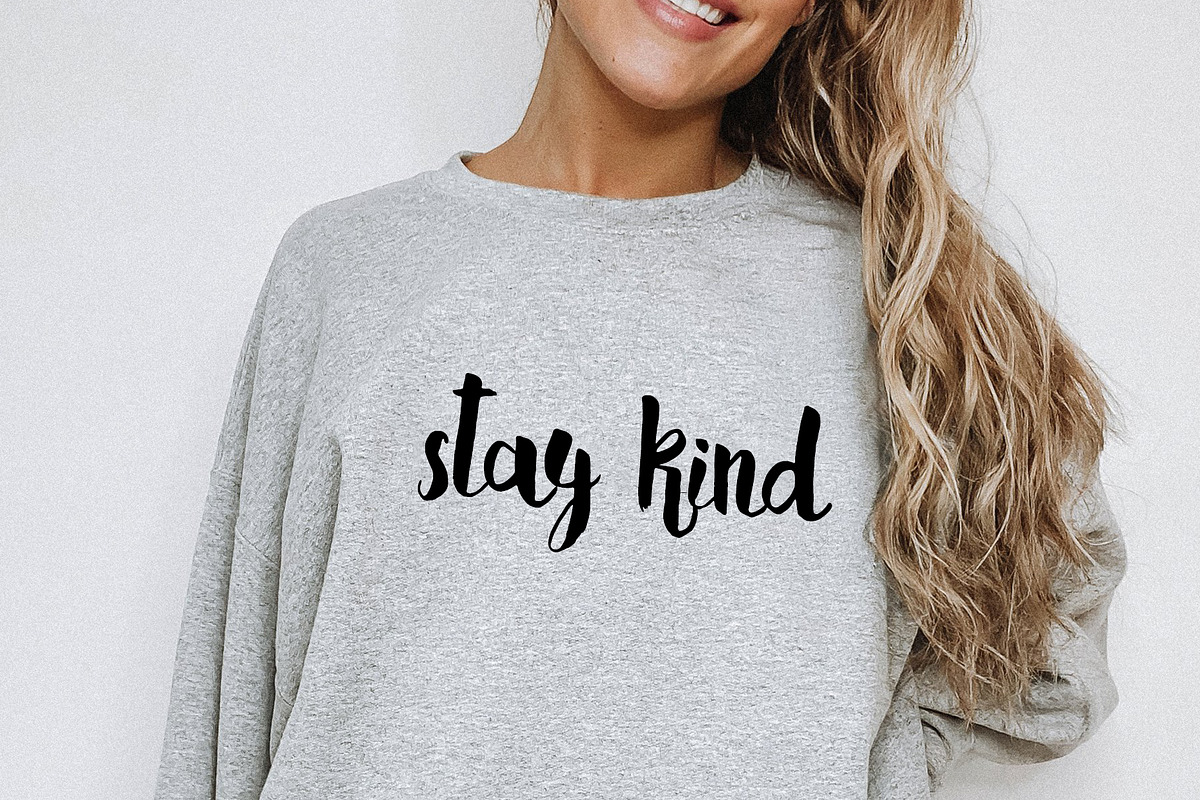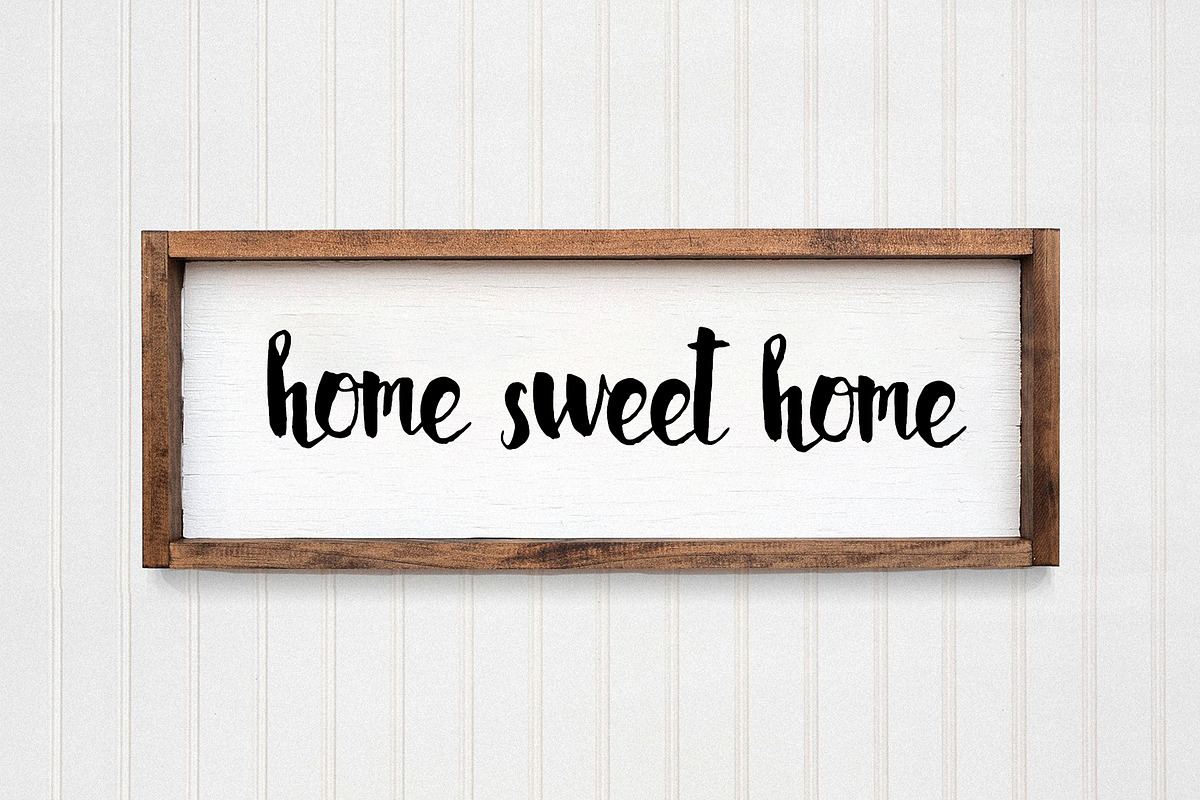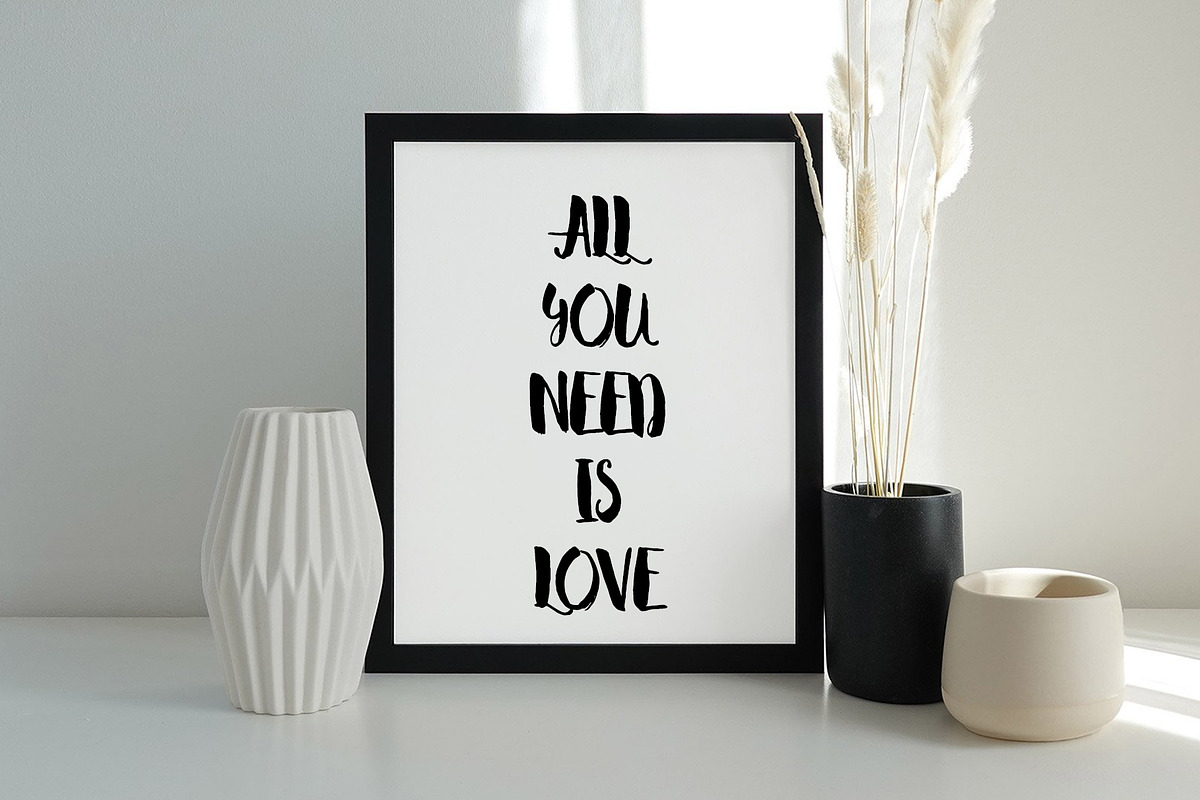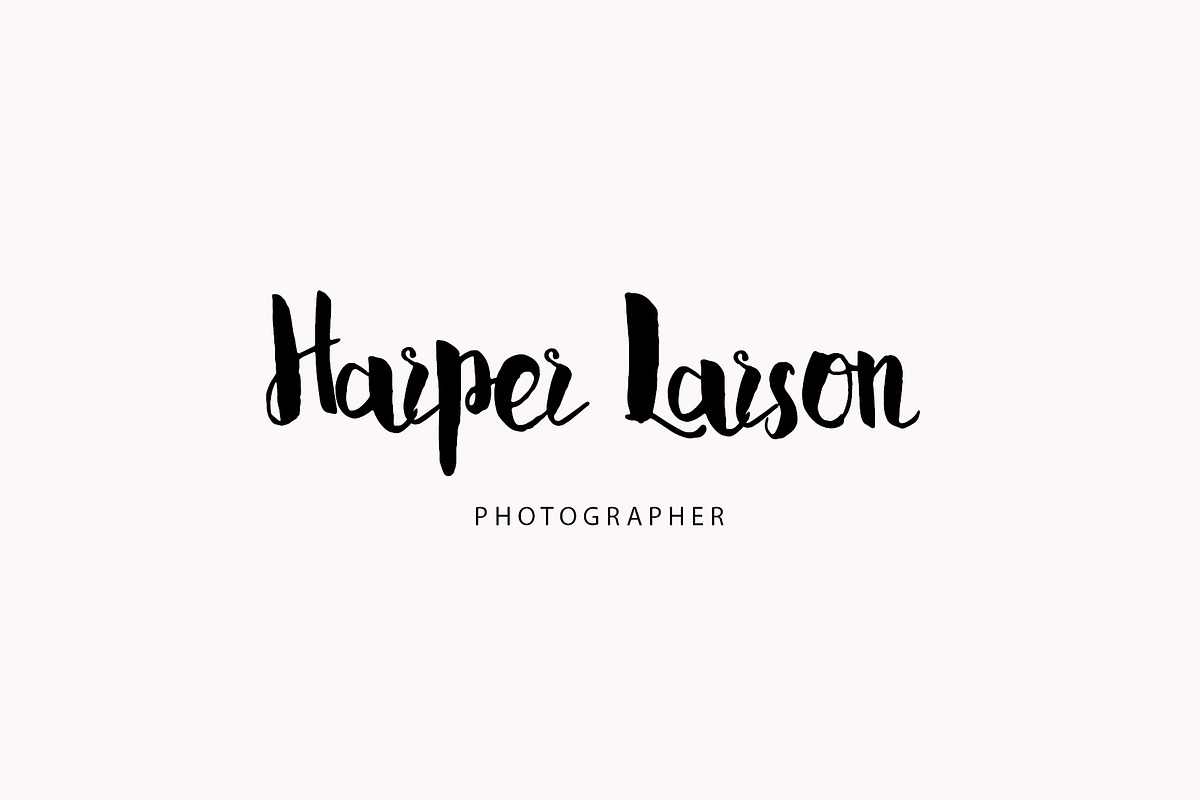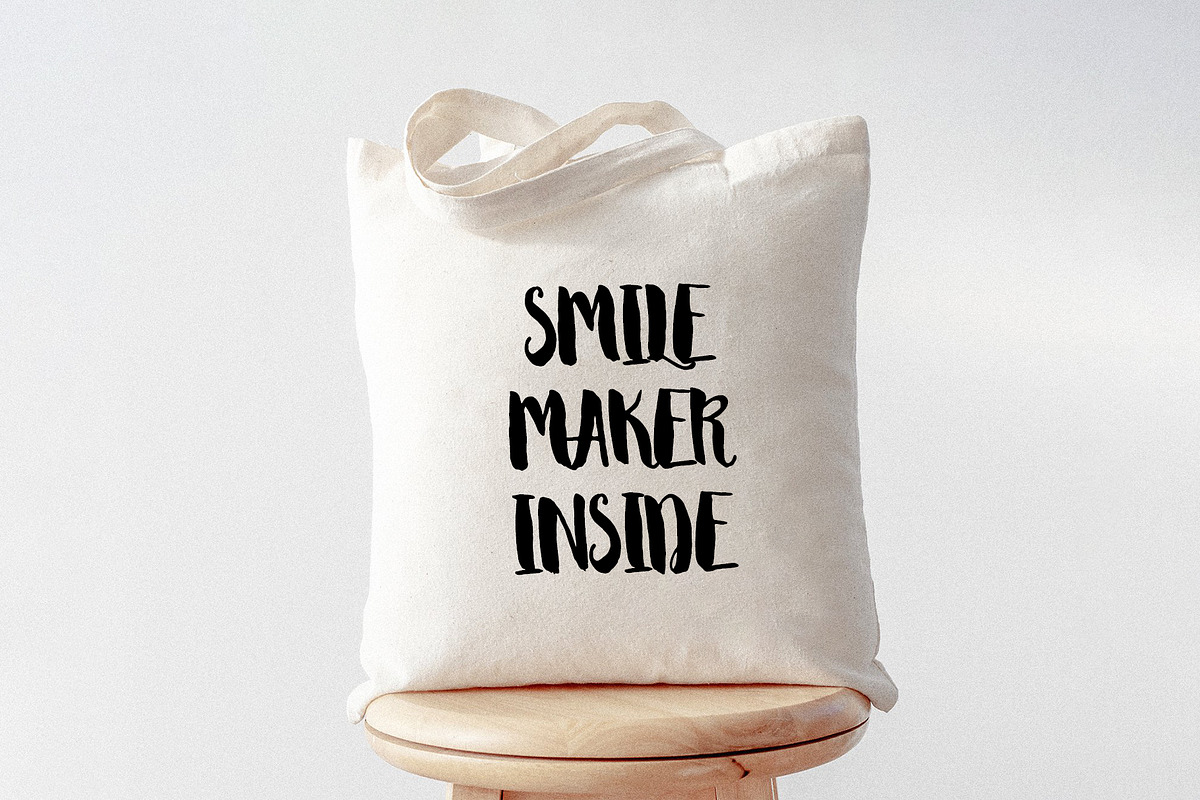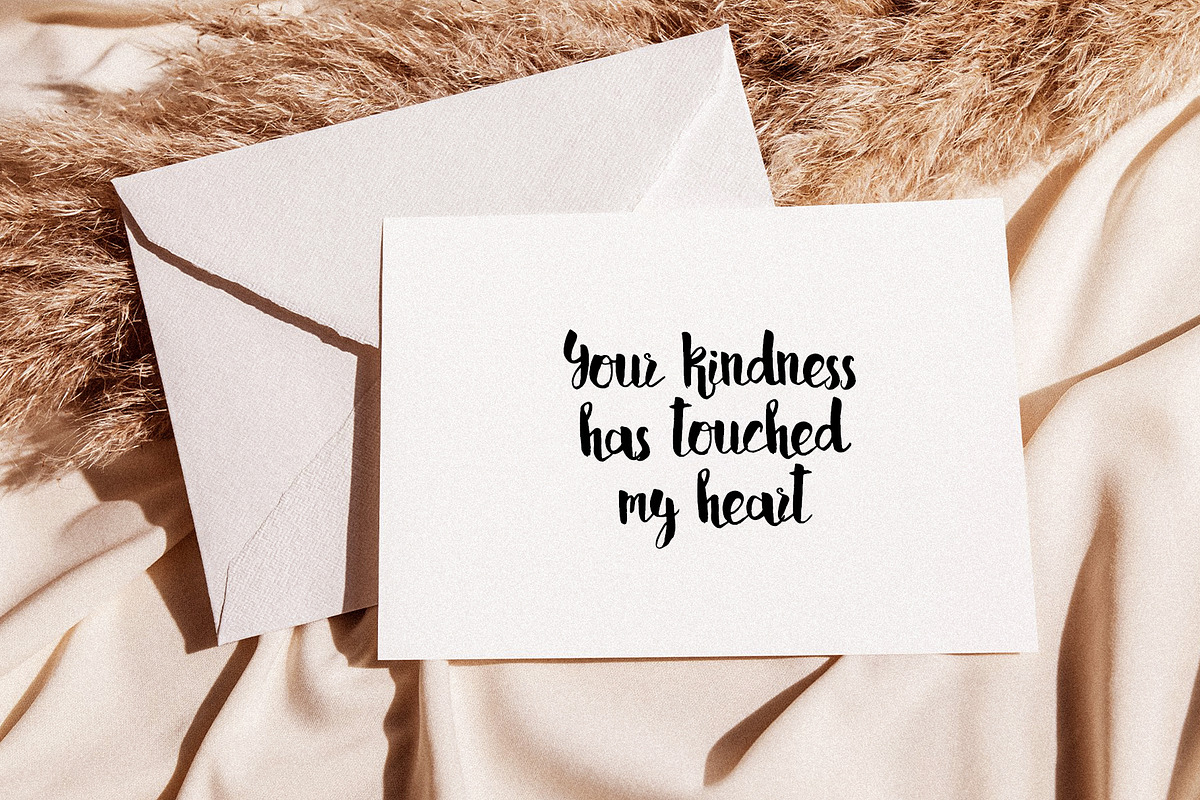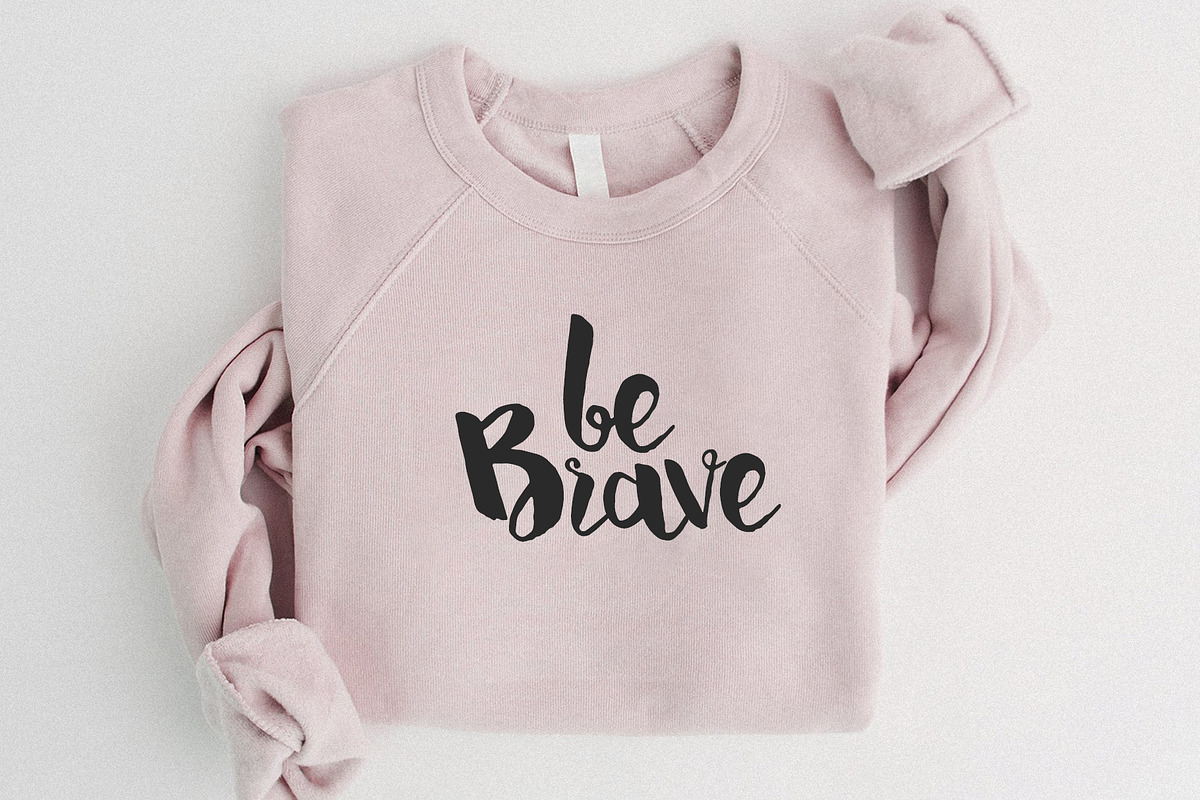
Beverly handwritten font
Beverly handwritten font by supfonts is a font selected for branding, posters, packaging, typography.
- Beverly can be used for fashion, Invitations, business cards, design and much more Many updates Multilingual Letters Fixed some letters Revi
Why Beverly handwritten font is worth a look
Beverly handwritten font by supfonts fits naturally into Branding, posters, packaging, typography.